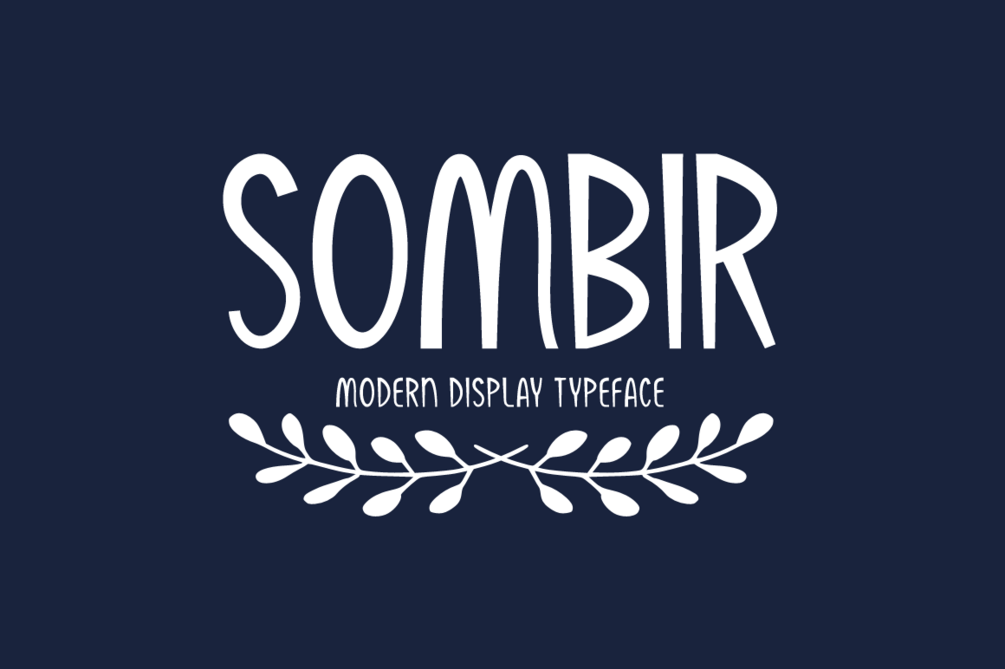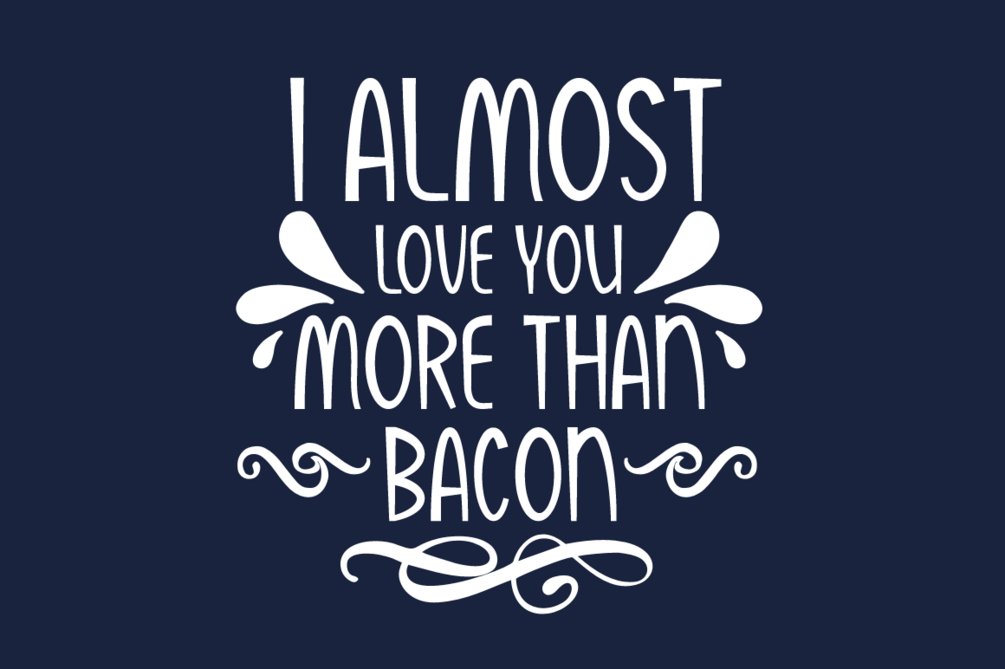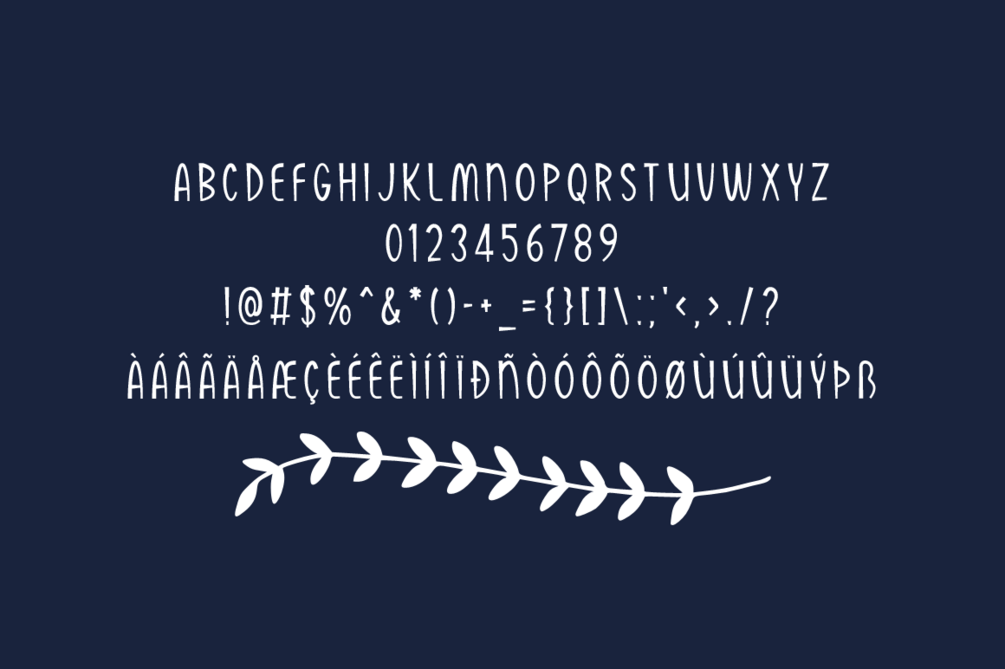
Sombir Typeface
Sombir is a brand new modern display font. Sombir is perfectly suited for stationery, logos, t-shirt, paper, print design, website header, photo frame, flyer, music cover, poster, image slider and much more.
Includes a range of multilingual support